Selecting the best script fonts can elevate any design project. Injecting a touch of elegance and personality to everything from wedding invitations, websites to brochures and branding. And luckily for those with a budget of zero, there are many free options that rival the quality of premium typefaces.
To help you find the perfect one, we've brought together 15 of the best free script fonts in one place, showcasing a variety of styles from classic calligraphy to modern brush strokes. Each font has been carefully chosen for its versatility, readability and aesthetic appeal.
Best free script fonts available today
01. Brushberry
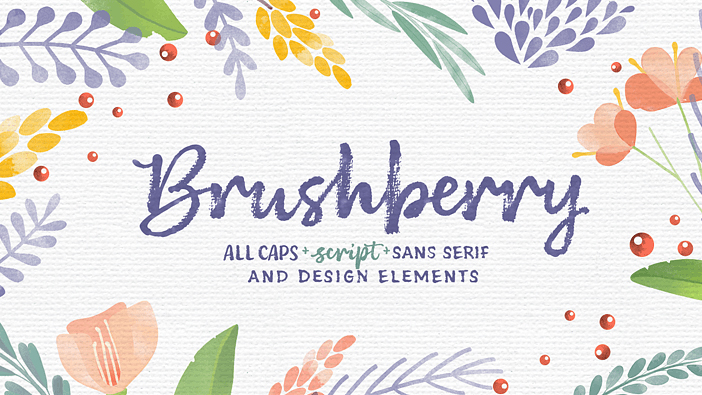
Produced at My Creative Land, Brushberry is a pretty but bold typeface that would work perfectly for wedding or party invitations. This delightful font highlights the beauty of calligraphy.
Brushberry has three different styles to choose from and is cleared for both personal and commercial use.
02. Sant’Elia Rough
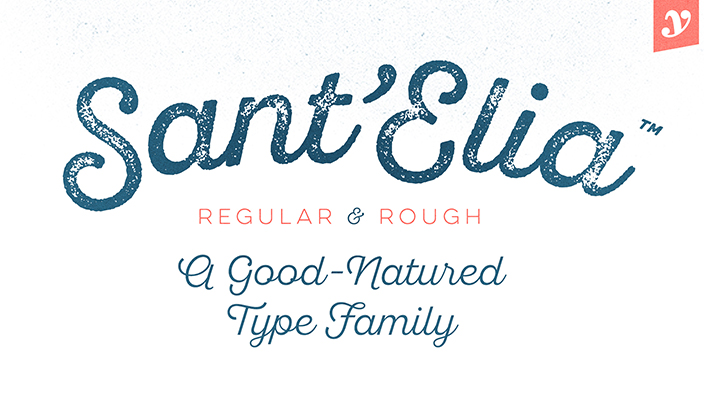
This font has a retro, vintage feel creating a real sense of nostalgia. Ideal for advertising and leaflets, this script has a distinct style that is sure to garner attention.
The creator Ryan Martinson has crafted a range of designs that have featured in campaigns across different media streams such as American Express, Wholefoods and the National Geographic Channel.
03. Choko Milky
Choko Milky is a free script font that's bursting with personality. With its bold bubbly style, it's perfect for adding a dose of retro appeal to your projects. Ideal for websites, invitations and any project that needs an energetic boost, it pairs beautifully with bright colours and cartoon style visuals.
04. Satisfy
Designed by Sideshow, Satisfy offers a modern twist on a classic script look. Note that the glyphs are joined together, giving this brush-script, display font an authentic handwritten feel. In a sea of samey free script fonts, this simple yet effective type will help your projects stand out from the crowd.
05. America
You don't see a lot of free fonts based on hit songs, but here's the exception. Inspired by Childish Gambino’s This is America, it boasts large dramatic capitals and a natural flowing stroke. This bold textured script font features a full upper- and lower-case character set, plus several alternate characters.
06. Ochre
If you’re seeking free script fonts that evoke an atmosphere of elegance and romance, then you might like Ochre Script. Designed by Gizem Kiliç, this hand-drawn calligraphy font will help you add a personal feel to wedding stationery, cards, letters, invitations and similar designs.
07. Raindy Monoline
Raindy Monoline is a heavy yet adorable script font. With its looping, joined glyphs and soft curves, it's perfect for cutesy projects that need a cheerful feel, and will add an element of calm too. A good option for branding projects, logos, wedding designs, social media posts, advertisements and product packaging.
08. Hoodson Script
With a bouncy baseline and a bonus Swash set, this free script font packs plenty of punch and personality into every curve. Hoodson Script is the work of Hendra Maulia and is suitable for logos, handwritten quotes, product packaging, header, posters, merchandise and greeting cards.
09. Serendipity
Of all the free cursive fonts we've spotted of late, Serendipity is one of the most inspired. Created by The HungryJPEG and featuring more than 90 hand-drawn characters, it enables you to add a dash of originality and individuality to your lettering and logo designs.
10. Vegan Style
Looking for more free script fonts that evoke a young and trendy feel? Vegan Style, created by Billy Argel in 2018, blends boldness with beauty to create something fresh and original. Supporting 280 characters, this font is partial and free to download for personal use only.
11. Alex Brush
There's a beautiful flow to this brush script, which was created by designer Rob Leuschke of TypeSETit. Alex Brush features short ascenders and descenders, allowing a legibility not seen in many other script fonts.
12. La Sonnambula
Designed by Fernando Haro, La Sonnambula is a handwritten and extended font that's been designed with calligraphic texts and elegant titles in mind. It's named after an opera by Vincenzo Bellini, performed by Maria Callas in Milan in 1957. Yet despite its classic roots, it's bang up to date, even including a Bitcoin symbol.
13. Noelan
Created by the team at Ndroadv, Noelan is at the quirkier end of free fonts. The script includes several alternates and international characters, so is easy for mixing and matching. Modern in its design Noelan would be ideal for wedding or party invitations.
14. Grand Hotel
Grand Hotel has a classic weight and subtlety that makes you think of artisan signage and craft, but its cursive lowercase lends itself to a host of different uses. This most refined of free script fonts was designed by Brian J Bonislawsky and Jim Lyles for Astigmatic.
15. Pregnancy Journey
Pregnancy Journey is charming single line font that's perfect for a multitude of projects. As suggested by the namesake it's perfect for baby shower invites or pregnancy announcements due to its soft cursive lettering. It has a tasteful bespoke appeal that's also good for wedding invites.